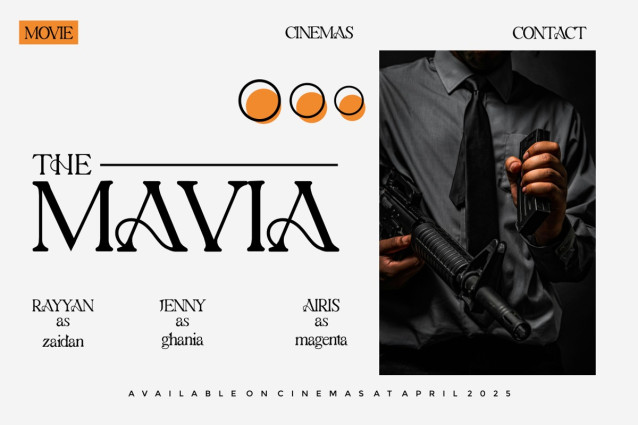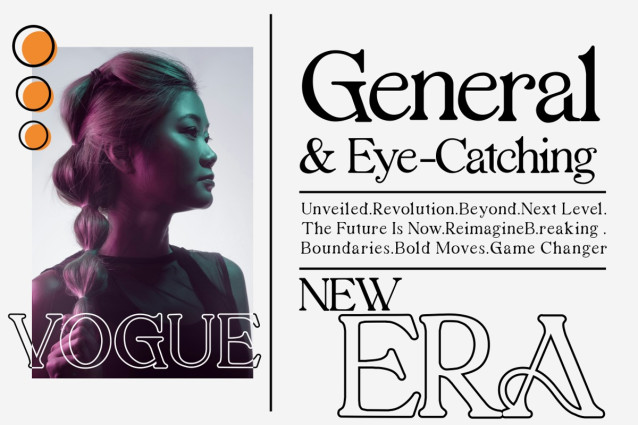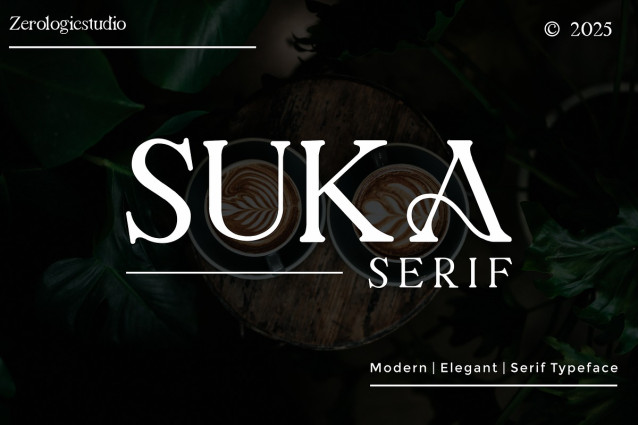
Suka Font
Suka Font is an elegant serif typeface that blends timeless beauty with contemporary refinement. Its graceful curves and sharp details create a sophisticated presence, perfect for luxury branding, editorial layouts, and high-end packaging. With a harmonious balance of classic and modern elements, Suka Serif exudes confidence, making every design feel effortlessly chic and captivating.